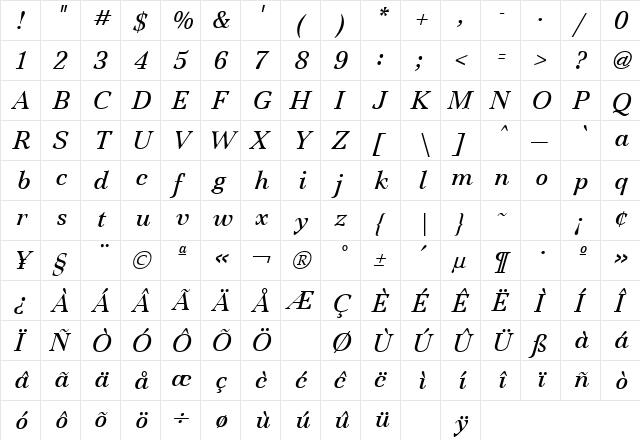
Jamille Italic
Design Context for Jamille Typeface
Jamille offers clean, dependable letterforms without strong stylistic allegiance, making it a practical choice for designers who need flexibility. The slanted form adds forward momentum and visual energy.
Pro Tip: Try Jamille for annotation and caption copy alongside an upright companion — the contrast in angle creates a dynamic but ordered typographic system.